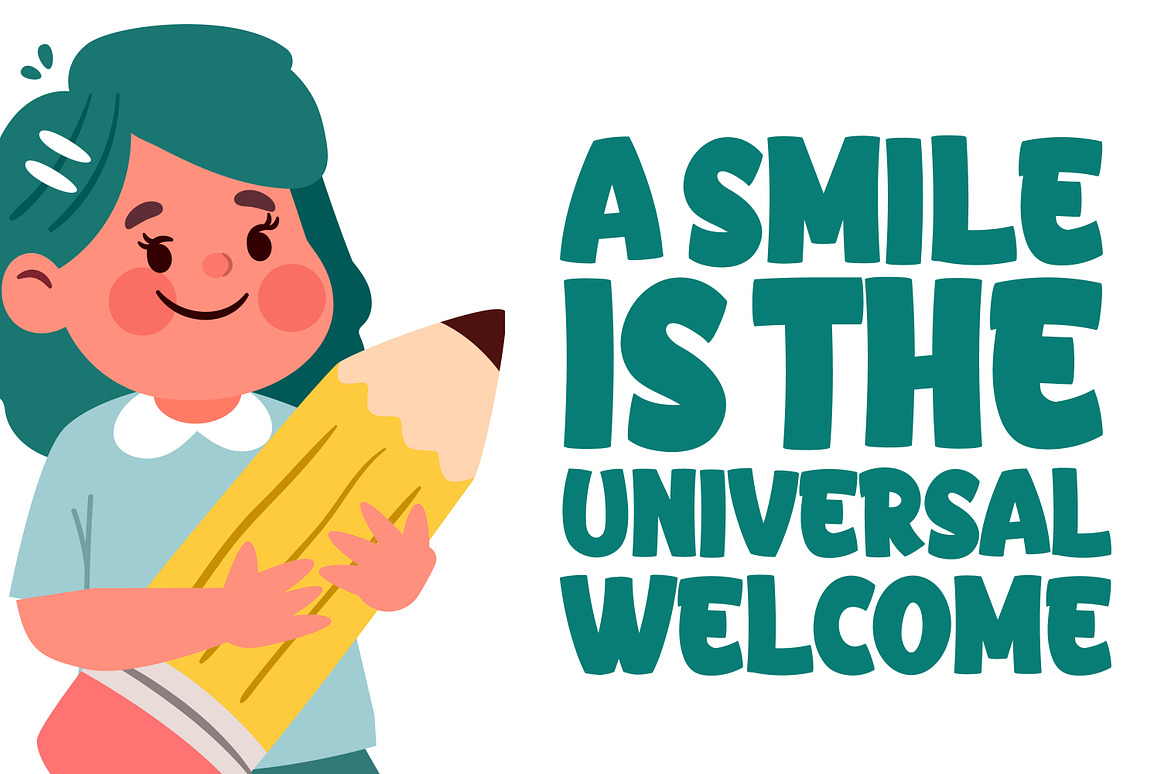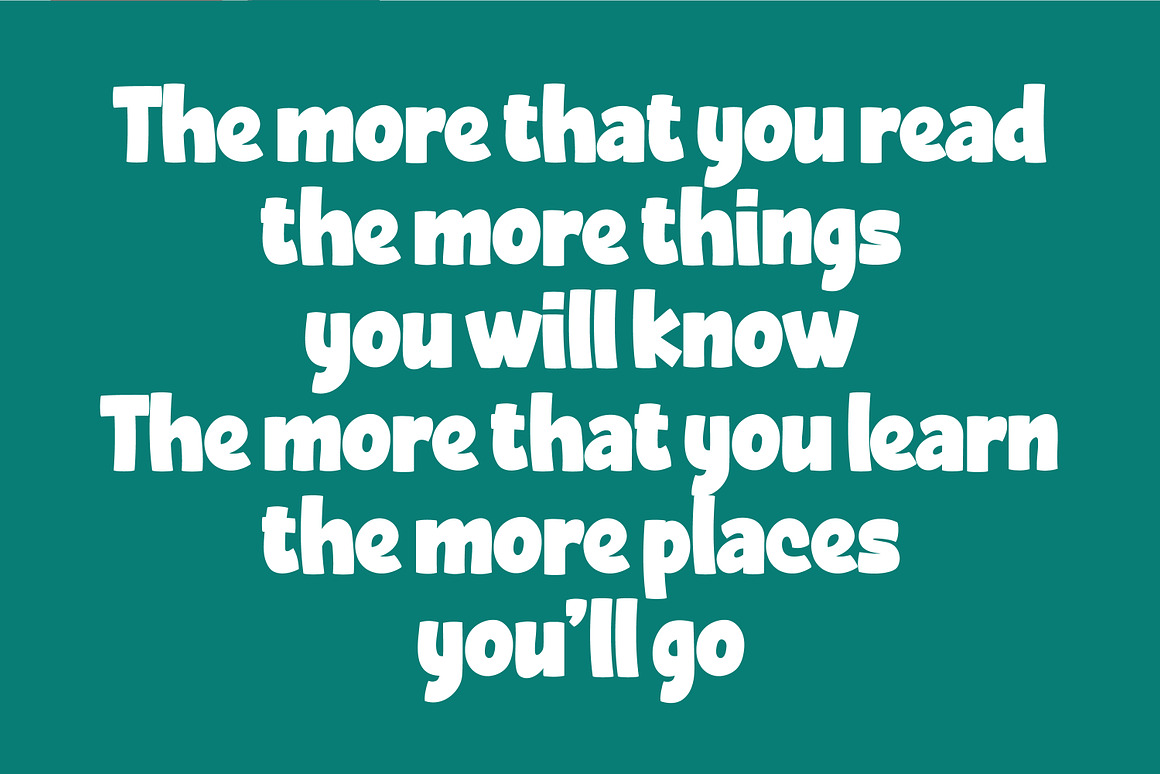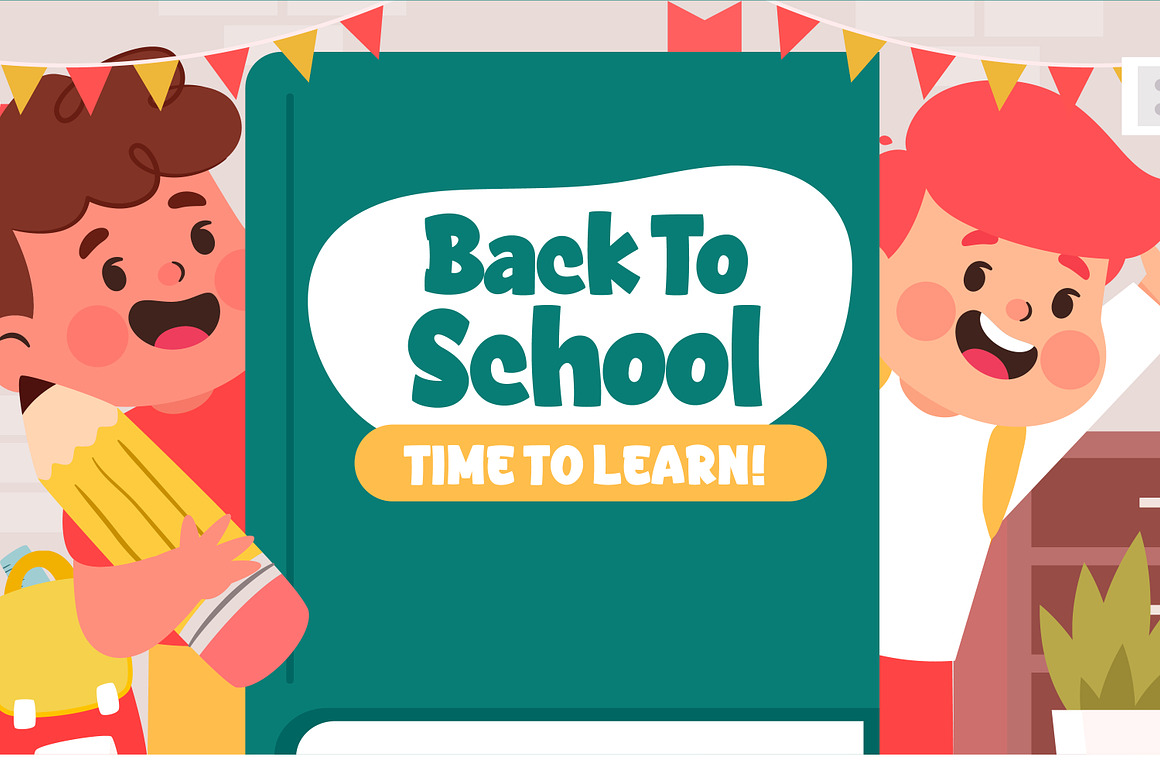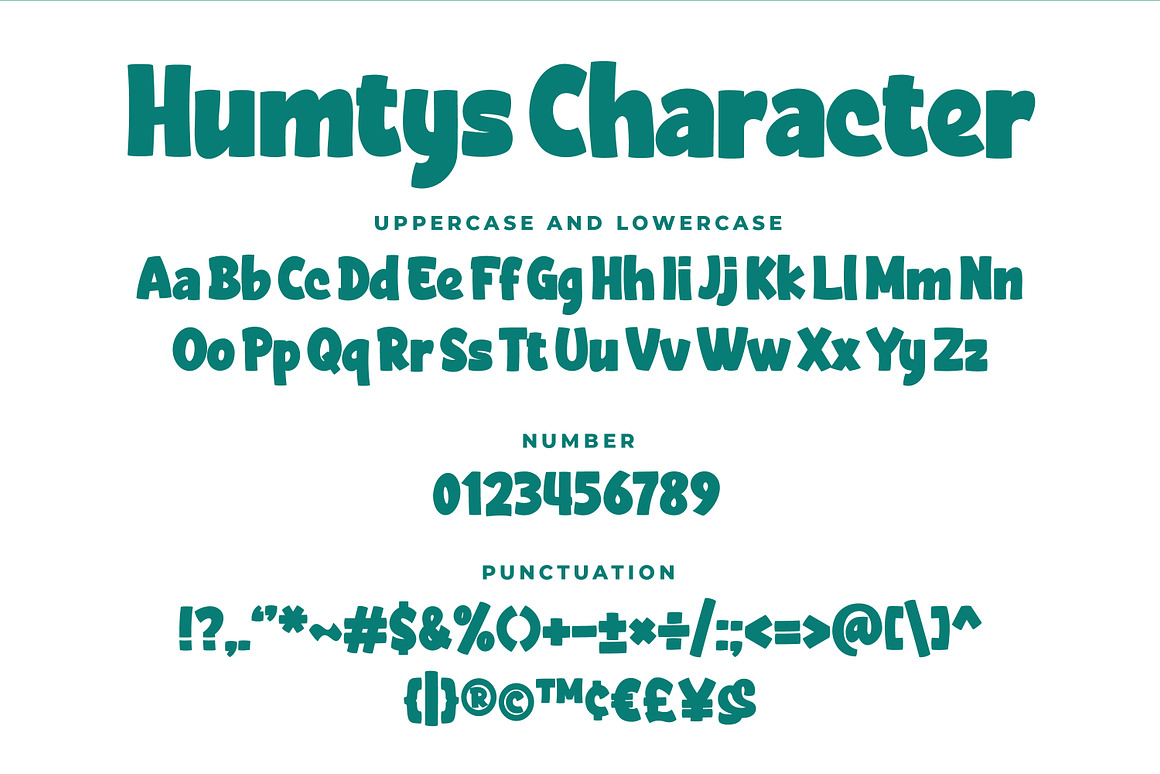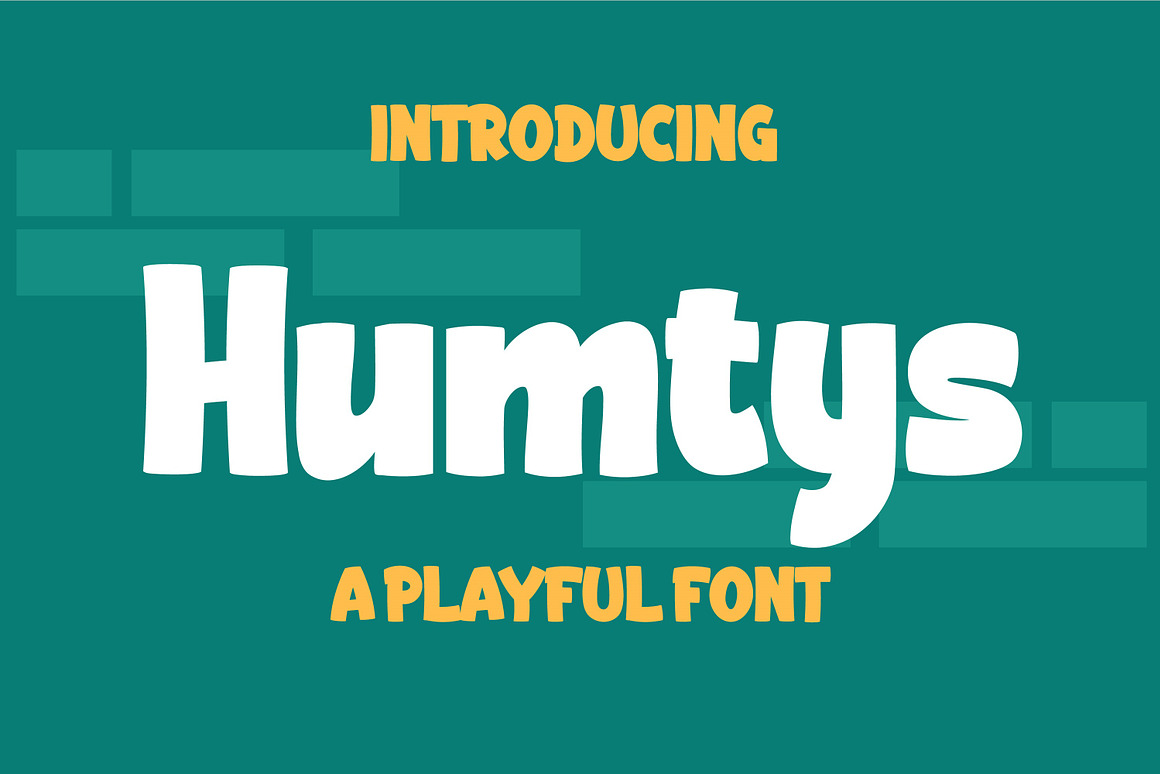
Humtys Fun Display Font
Introducing Humtys The playful display font that’s bursting with fun and creativity! With its bubbly shapes and lively personality, Humtys brings joy and excitement to any project. Perfect for playful branding, posters, children’s products, or social media graphics, this font adds a cheerful, vibrant touch that instantly captivates.